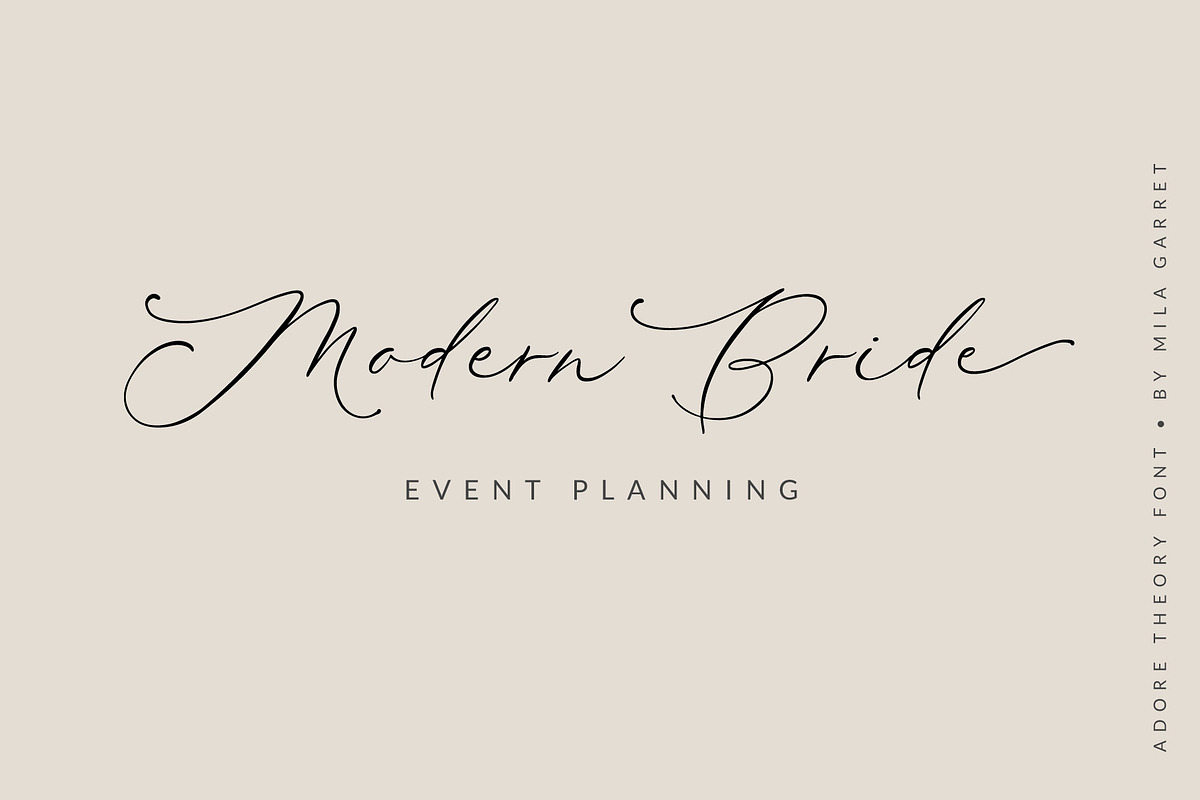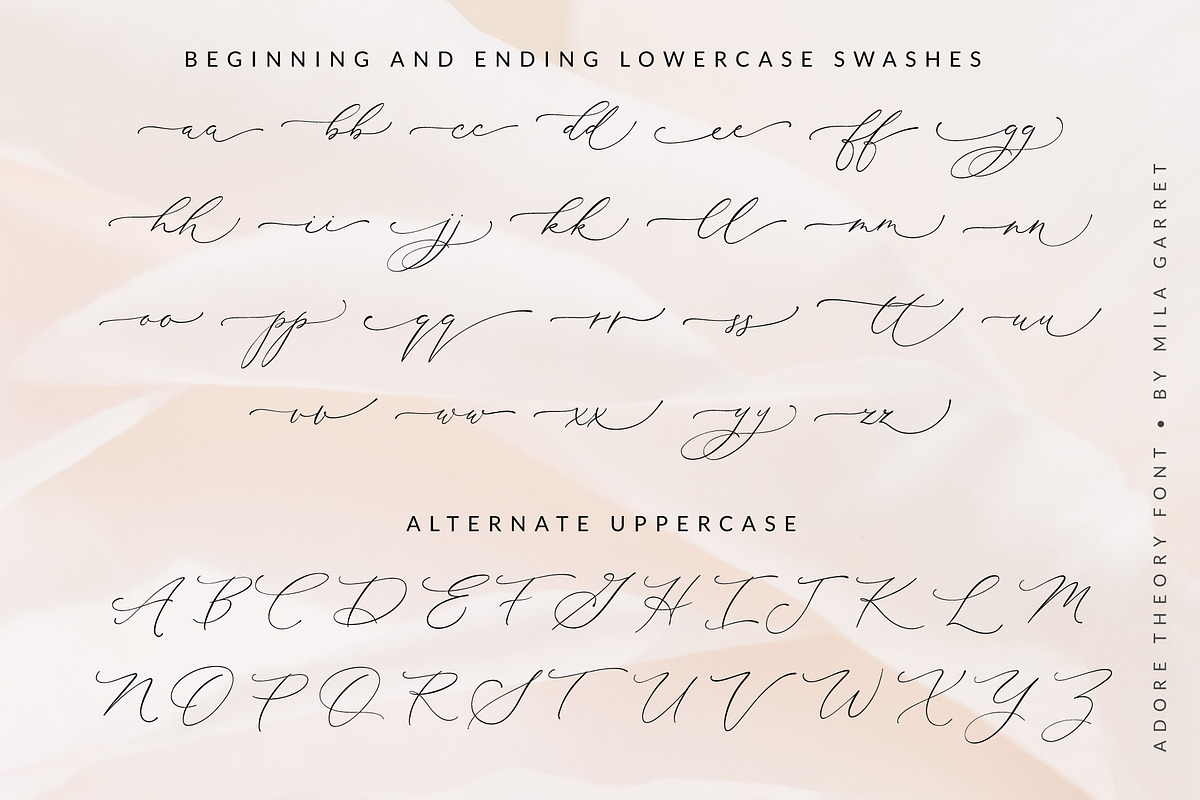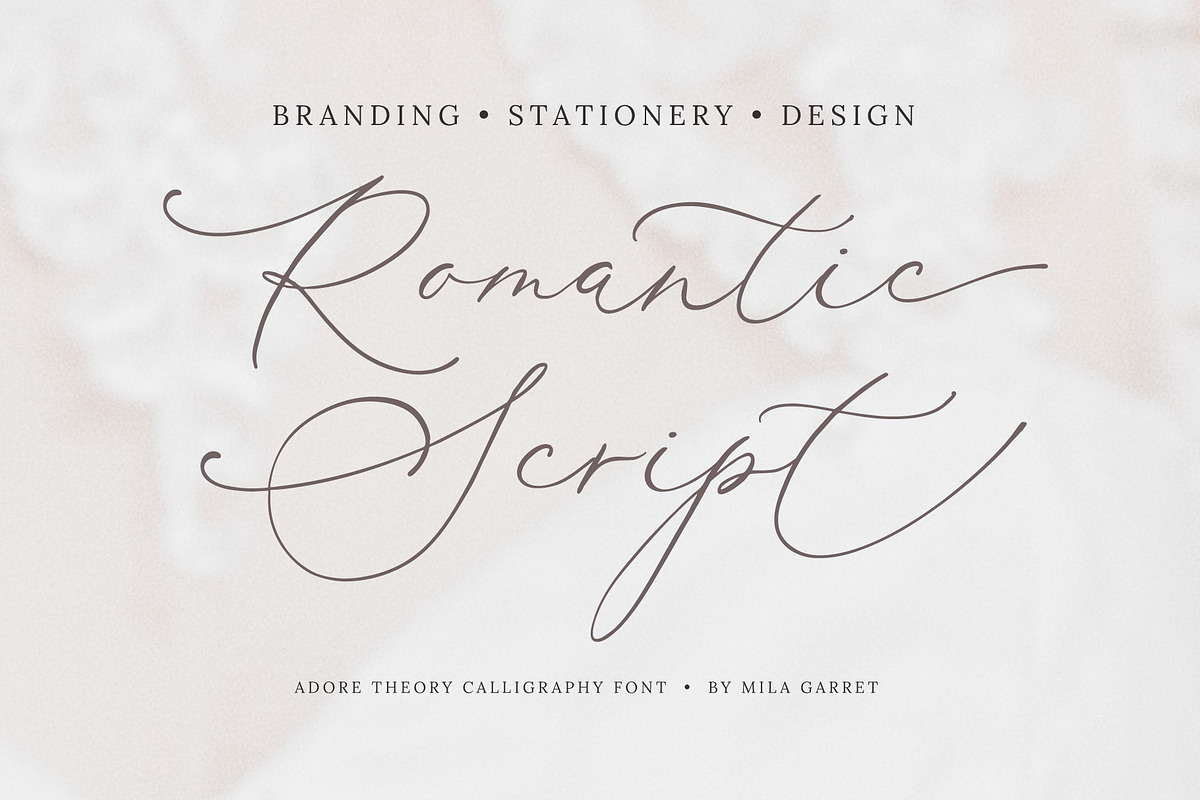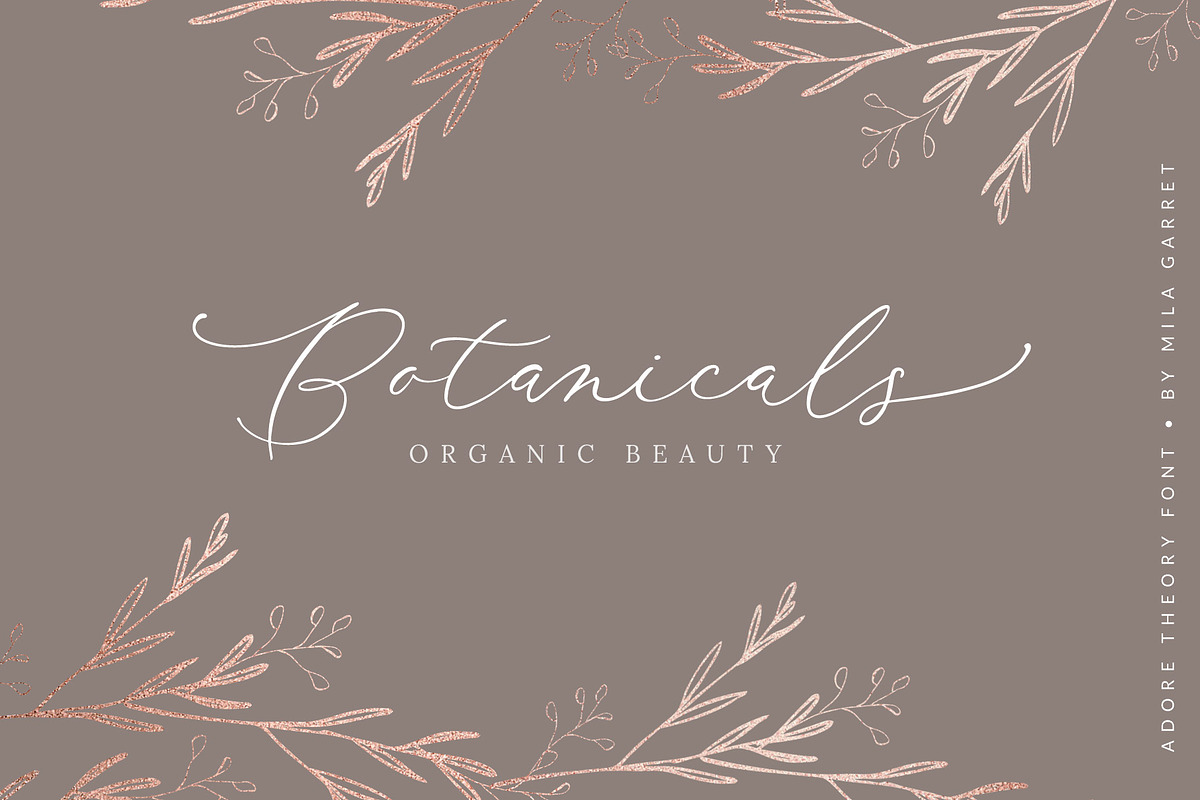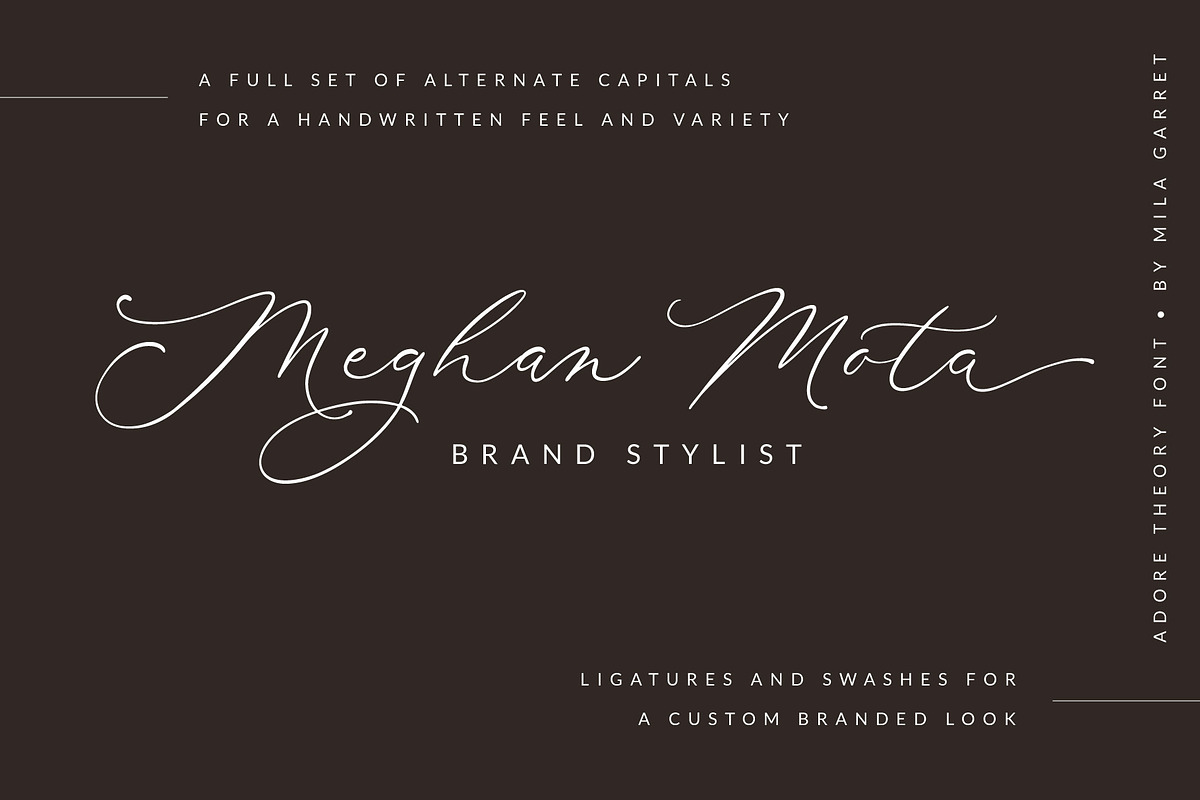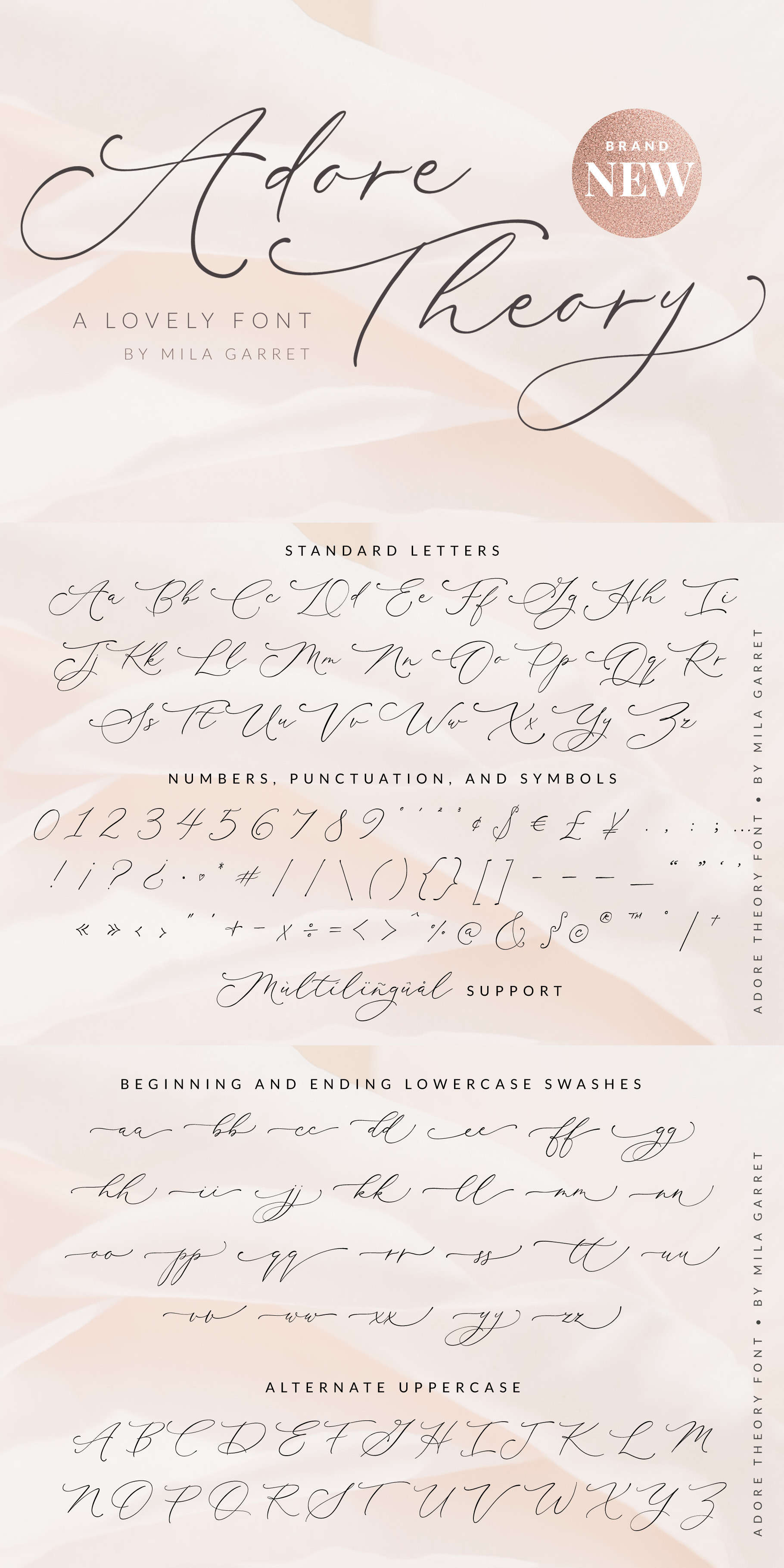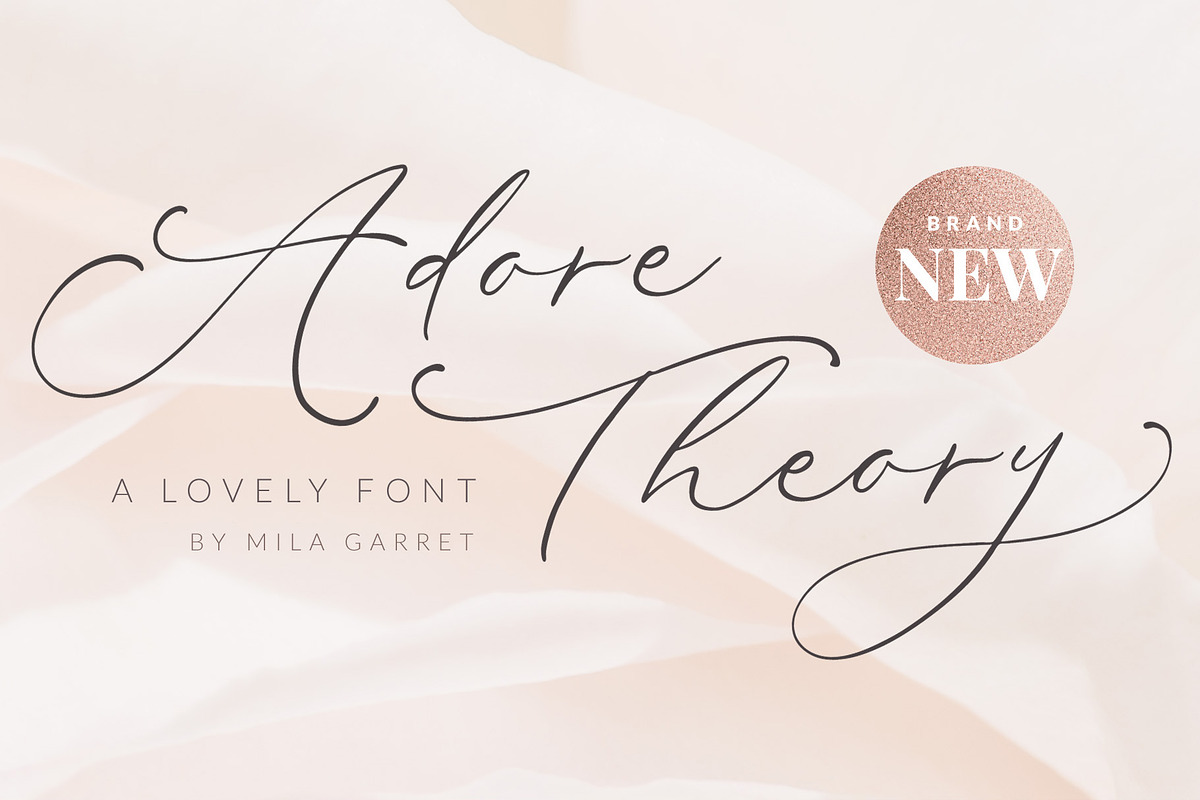
Adore Theory Modern Wedding Font
Say hello to Adore Theory, a feature-packed modern calligraphy font perfect for elegant logos, wedding stationery, photography branding, modern websites, and more! A full set of alternate uppercase gives your letters that custom handwritten look, as well as beginning and ending lowercase swashes. Made with lots of love, it's sure to give that special finesse to your projects!
Update: Adore Theory Alt has been added with an alternate/more standard uppercase G!
Adore Theory Features
- Full Set of standard alphabet and punctuation
- Extra set of beginning swashed capitals
- Extra set of beginning swashed lowercase
- Extra set of ending swashed lowercase
- 31 Ligatures for a natural hand-lettered look
- Extra stylistic alternates
- Multilingual Characters (ÁÂÄÀÅÃÆÇÐÉÊËÈÍÎÏÌÑÓÔÖÒØÕŒÞÚÛÜÙẂŴẄẀÝŶŸỲ áâäàåãæçðéêëèíîïìñóôöòøõœþßúûüùẃŵẅẁýŷÿỳŠšŽž€£¥ªº)
I'd a veteran Graphic Designer that studied typography for 2 years in school. This font is expertly created and supports front and end cap letters that are seamless. Well worth it!
This font is so beautiful, elegant and modern. I love it! The only thing that could improve it is a different capital G, something more like the one in "Besotted" or the swash version of "Parisian".